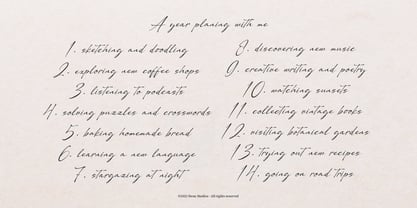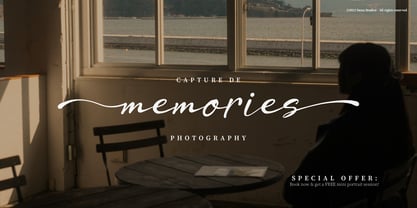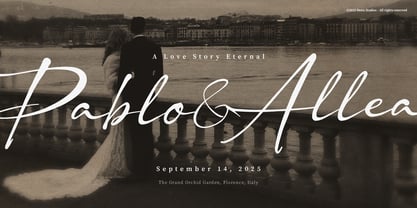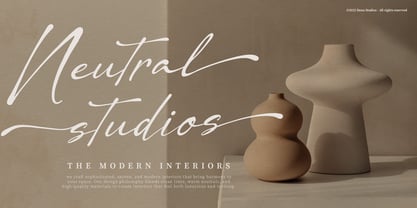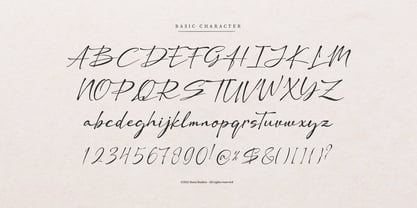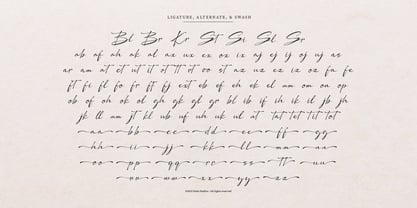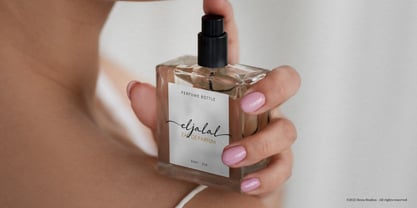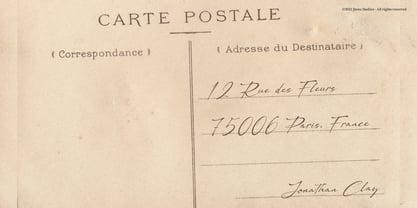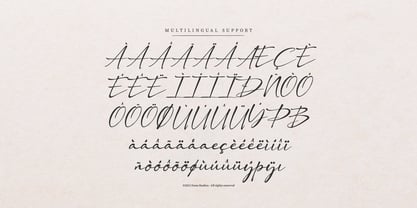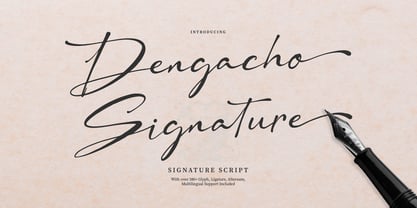
Dengacho Signature
Die Schriftfamilie Dengacho Signature wurde von Dede Nugraha entworfen und von Denustudio veröffentlicht. Dengacho Signature enthält 2 Stile und Familienpaketoptionen. Mehr über diese Familie
Dengacho Signature | Signature Script, from Denustudios, suitable for any projects such as: logos, branding projects, homeware designs, product packaging, mugs, quotes, posters, shopping bags, t-shirts, book covers, name card, invitation cards, greeting cards, label, photography, watermark, special events, and all your other lovely projects that need Signature a taste.
• Regular and Italic
• Standard glyphs
• Alternate and Ligature
• Fonts include multilingual support